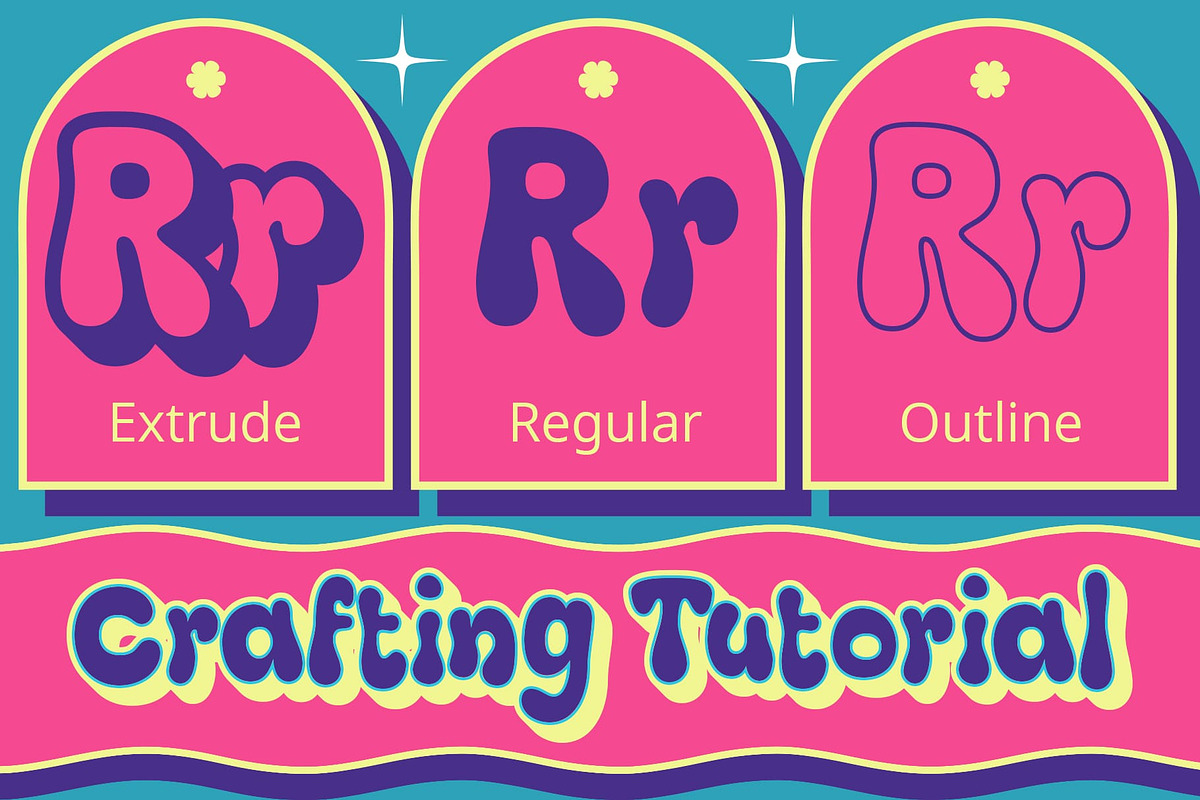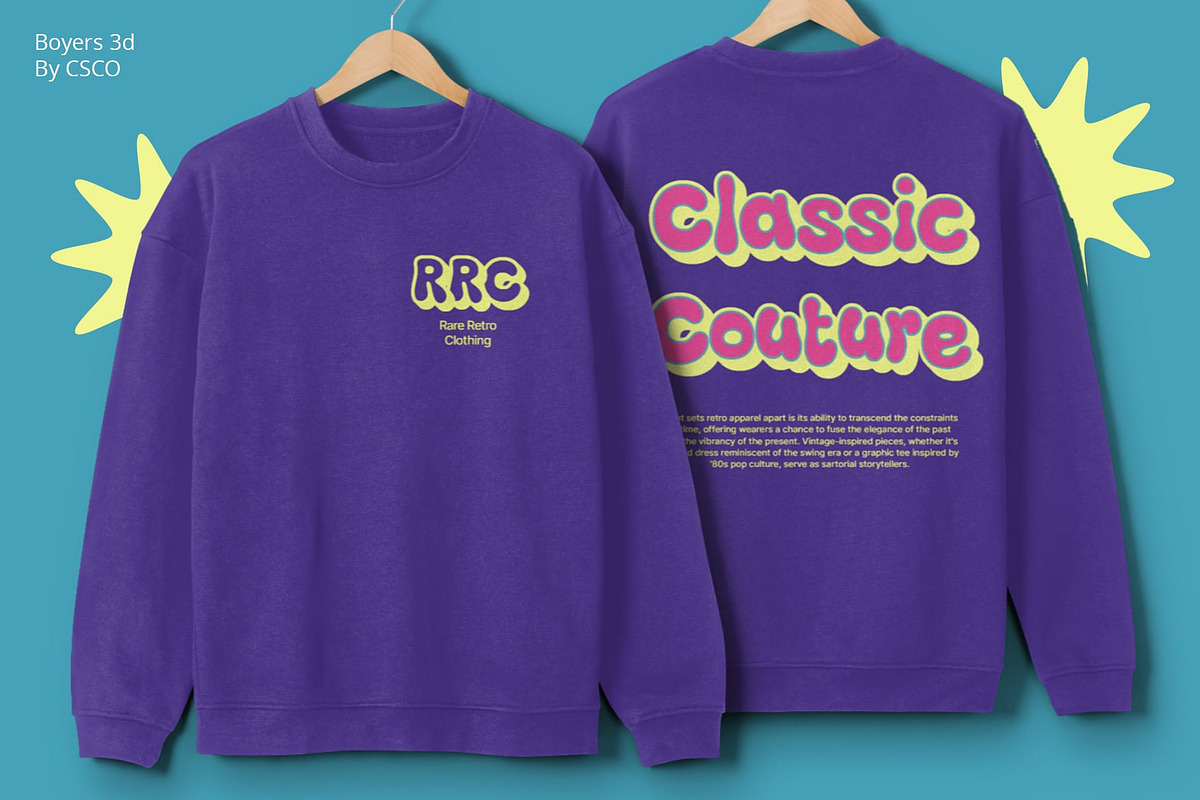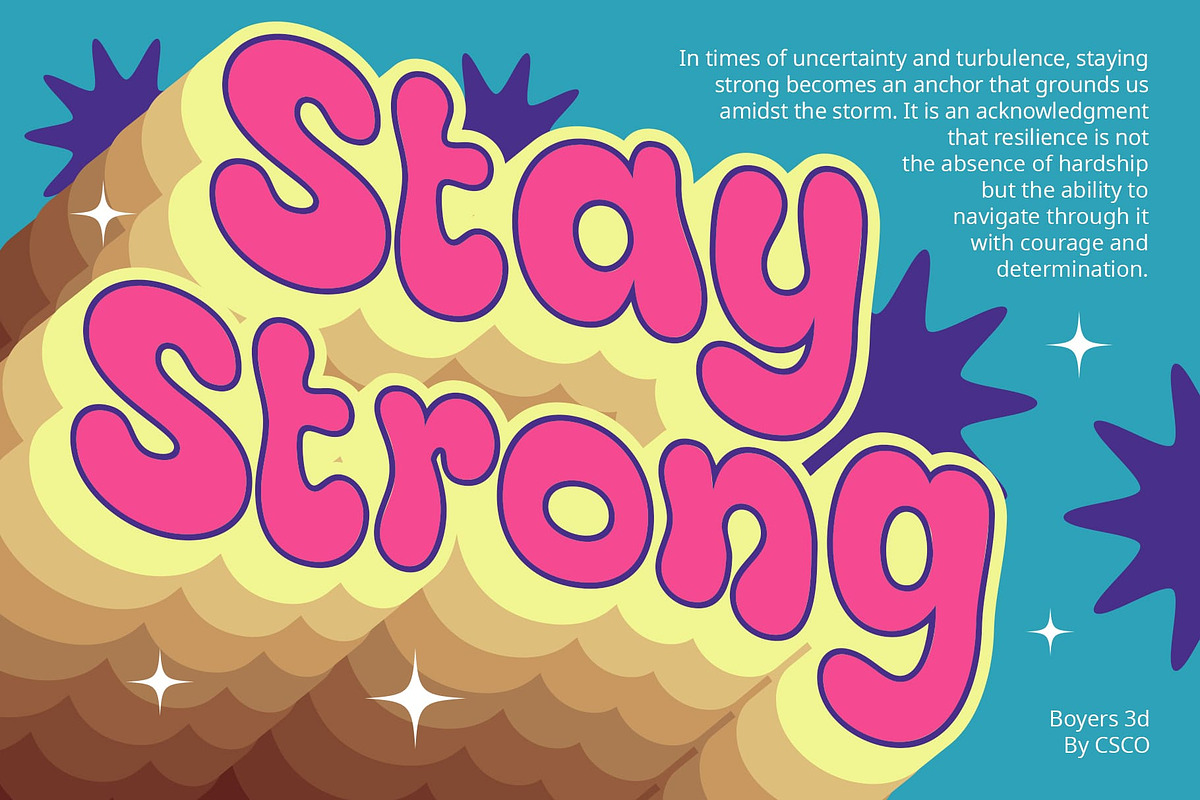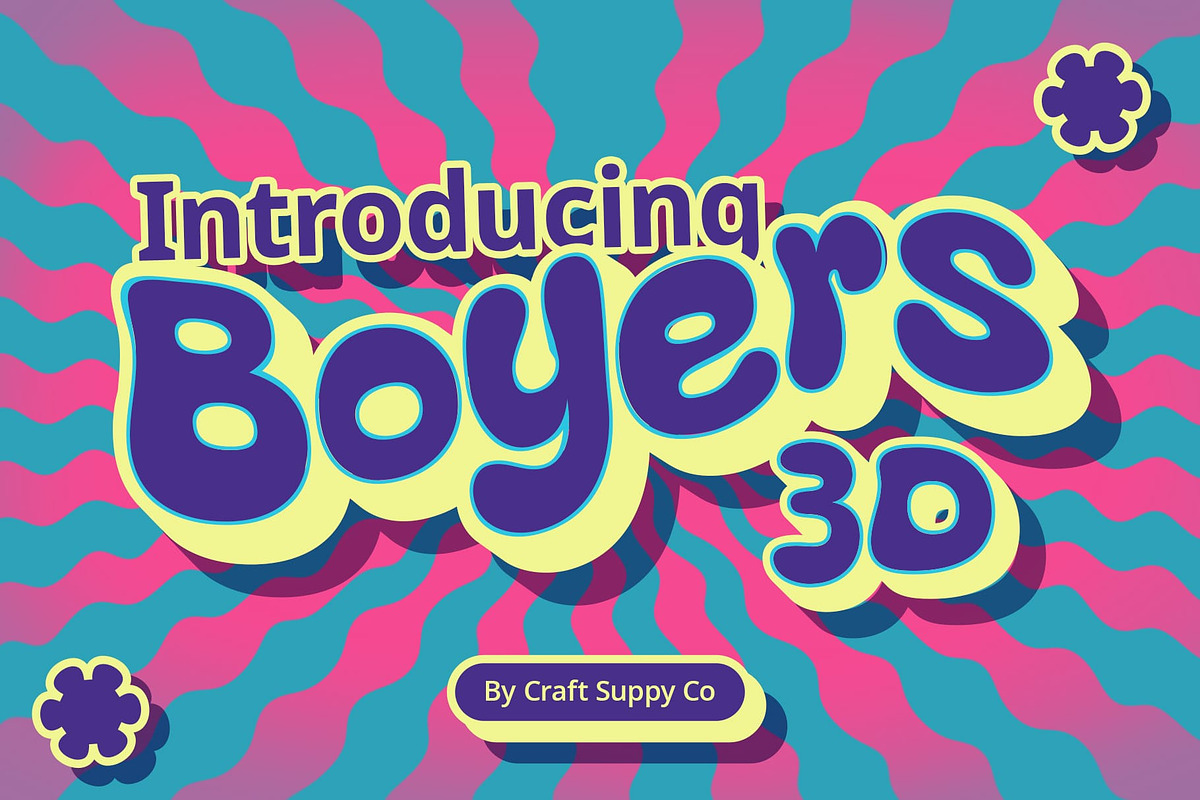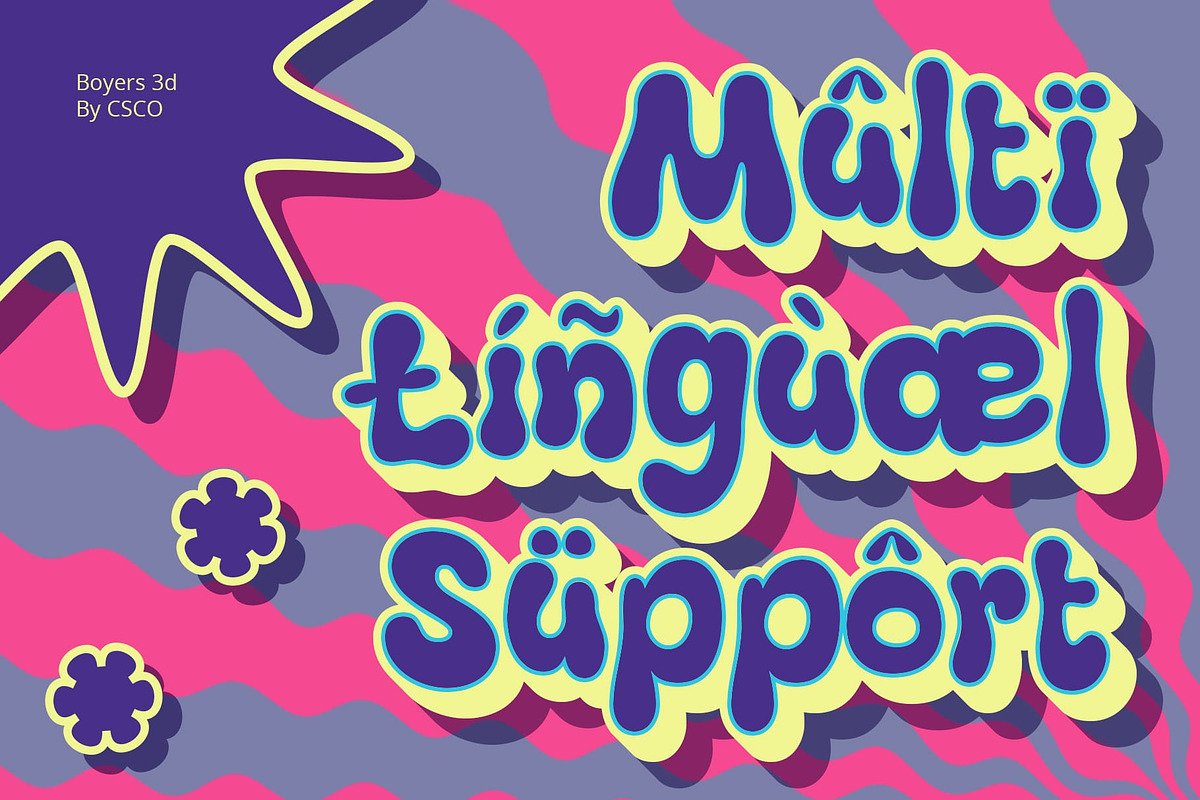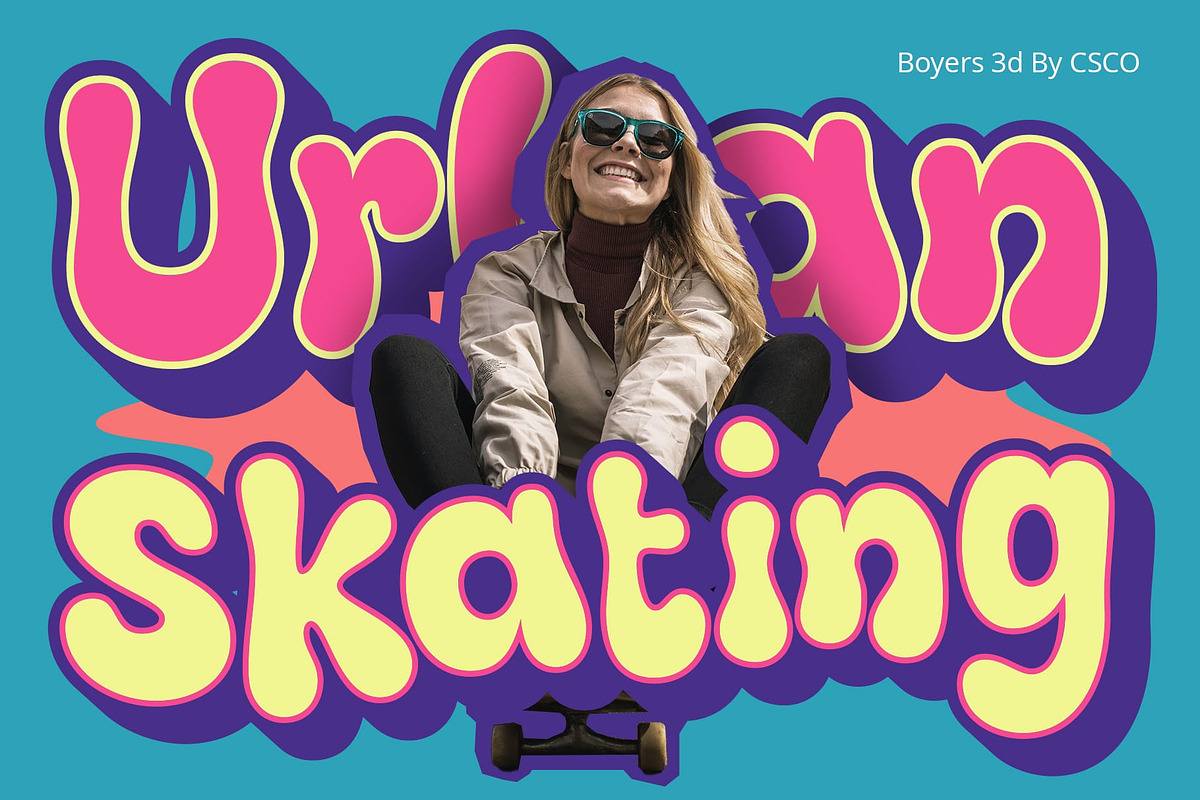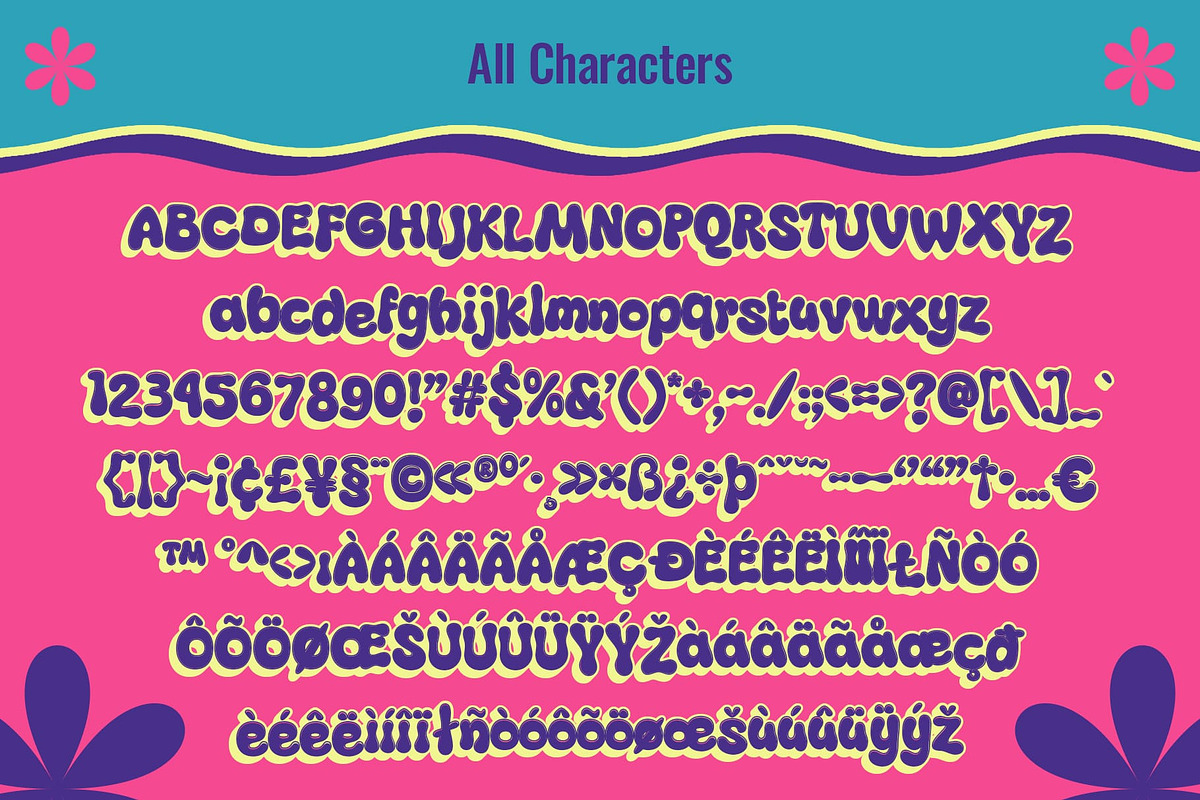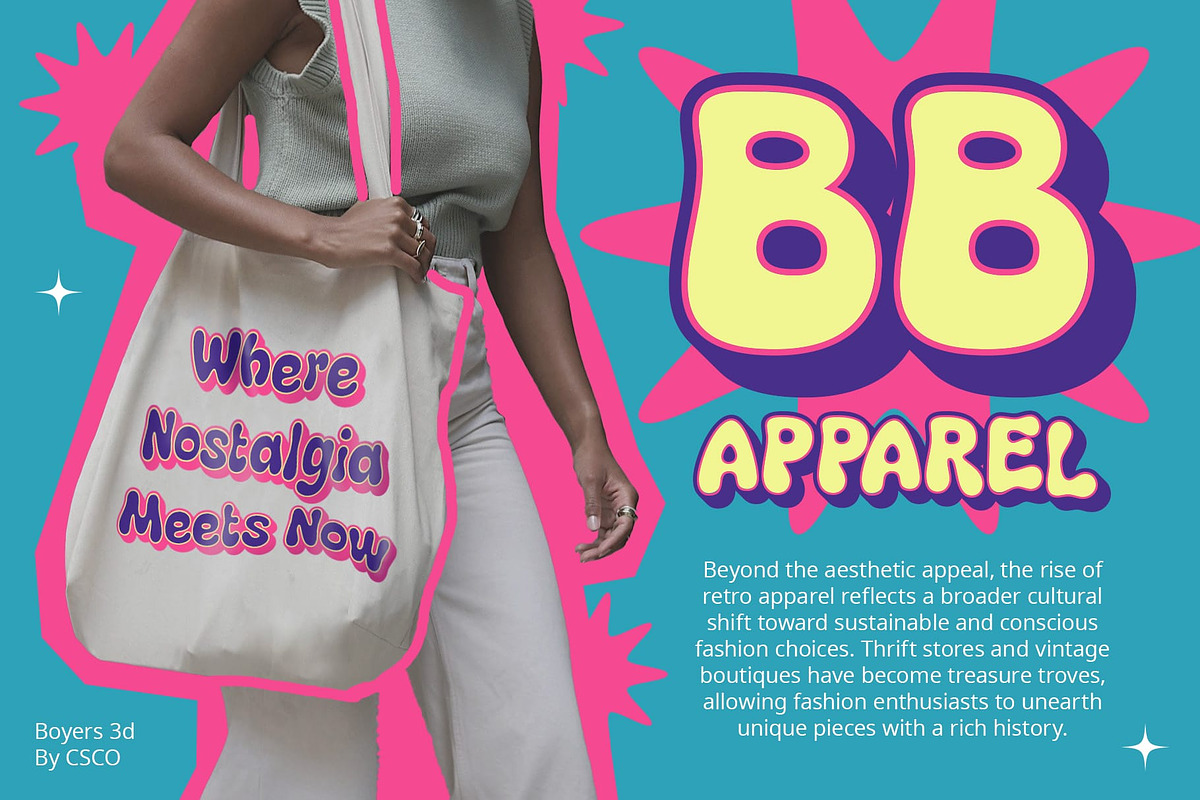
Boyers 3D
Boyers 3D: Playful Elegance in Every Curve
Joyful Playfulness in Typography Boyers 3D, a display font with captivating bubble shapes, infuses an unparalleled sense of playfulness, making it perfect for children’s projects.
A Symphony of Curves and 3D Whimsy Every curve in Boyers 3D tells a story of joy. The font’s unique bubble shapes take on a three-dimensional life, adding a delightful touch to your designs.
Tailored for the Youngest Creatives Designed with the youngest creatives in mind, Boyers 3D brings an element of fun to educational materials, children’s books, and playful branding projects.
Beyond Two Dimensions Boyers 3D is not just a font; it’s an immersive experience. The clever use of 3D effects elevates each character, creating a visual feast that goes beyond two dimensions.
Conclusion Boyers 3D is the epitome of playful elegance, where the simplicity of bubble shapes meets the sophistication of three-dimensional design. Bring joy to your designs with this delightful and vibrant font.
- Boyers Regular
- Boyers Outline
- Boyers Extrude Right
- Boyers Extrude Left